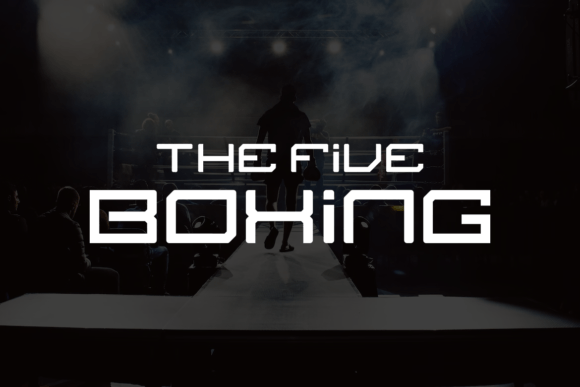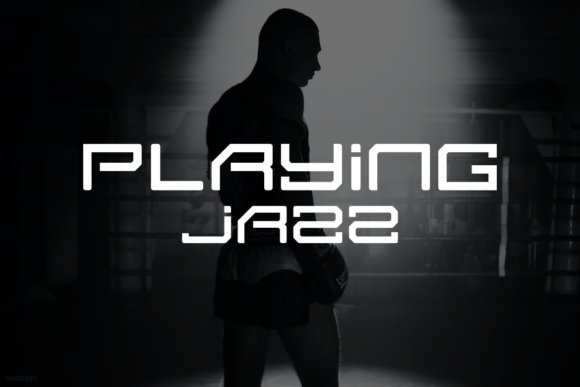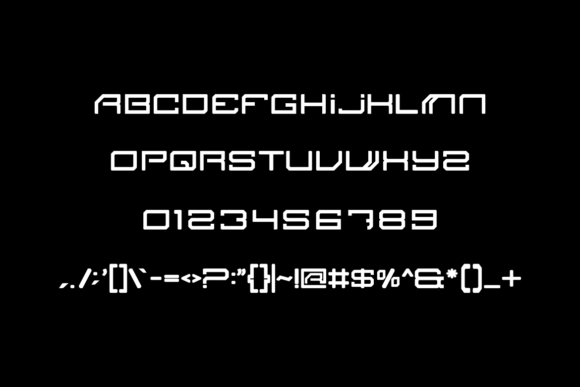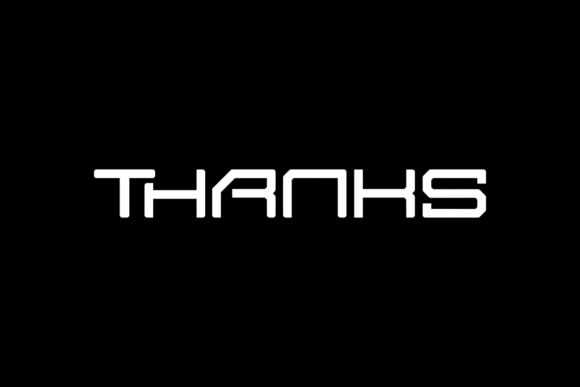
Introducing Abpars Font: The Ultimate Cyberpunk Display Font
In the world of design, fonts play a crucial role in conveying the message and aesthetic of a project. With the ever-evolving digital landscape, designers are constantly on the lookout for innovative and bold typography to make their work stand out. This is where Abpars Font comes in – a modern, bold display font that embodies the essence of cyberpunk and futuristic techno-mecha style.
Unleash Your Creativity with Abpars Font
Abpars Font is designed to take your creativity to the next level with its cutting-edge aesthetics. Its unique and futuristic design adds a new dimension to your designs, making it perfect for a wide range of projects, including websites, posters, logos, and more. Whether you’re a designer, craftsperson, or simply a DIY enthusiast, Abpars Font is the perfect tool to elevate your work and make it truly unforgettable.
Key Features of Abpars Font
- Modern and Bold Design: Abpars Font boasts a modern and bold design that is sure to grab attention. Its sleek lines and futuristic aesthetic make it perfect for projects that require a touch of innovation and sophistication.
- Cyberpunk and Techno-Mecha Style: Inspired by the world of cyberpunk and techno-mecha, Abpars Font brings a unique and edgy feel to your designs. Its futuristic style is perfect for projects that require a bold and avant-garde approach.
- Versatile and Adaptable: Abpars Font is designed to be versatile and adaptable, making it perfect for a wide range of projects, from websites and posters to logos and branding materials.
- Easily Readable: Despite its bold and futuristic design, Abpars Font is easily readable, making it perfect for use in a variety of contexts, from digital screens to print materials.
Use Cases for Abpars Font
Abpars Font is perfect for a wide range of projects, including:
- Websites and Digital Platforms: Use Abpars Font to create a bold and futuristic website that showcases your brand’s personality and style.
- Posters and Flyers: Add a touch of innovation and sophistication to your posters and flyers with Abpars Font’s cutting-edge design.
- Logos and Branding Materials: Create a unique and memorable logo with Abpars Font’s bold and futuristic aesthetic.
- Social Media Graphics: Use Abpars Font to create eye-catching social media graphics that showcase your brand’s personality and style.
Why Choose Abpars Font?
- Unique and Original Design: Abpars Font boasts a unique and original design that is sure to make your projects stand out.
In conclusion, Abpars Font is a modern, bold display font that is perfect for designers and craftspersons looking to add a touch of innovation and sophistication to their projects. With its cutting-edge aesthetics, cyberpunk and futuristic techno-mecha style, and versatile design, Abpars Font is sure to take your creativity to the next level. So why wait? Download Abpars Font today and start creating unforgettable designs that showcase your brand’s personality and style.